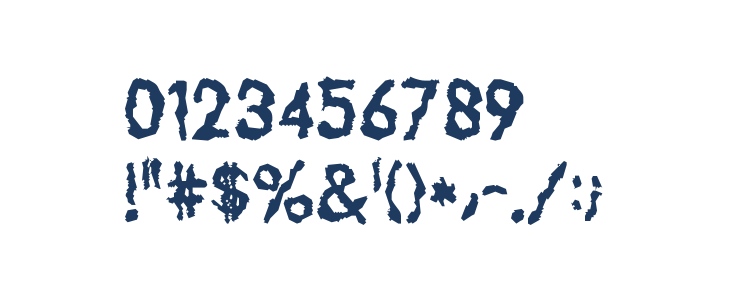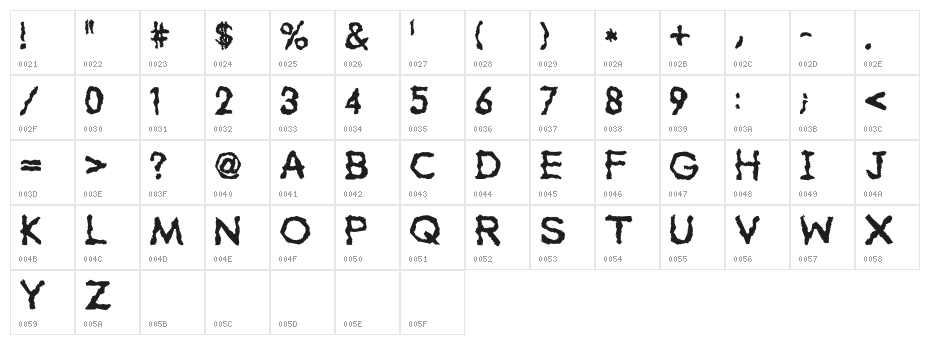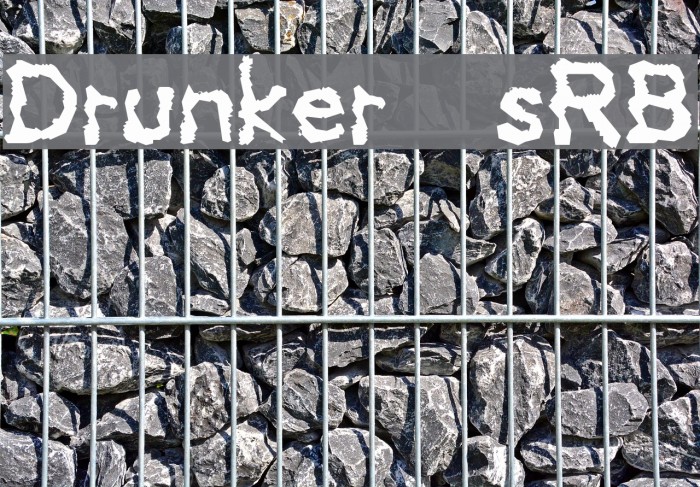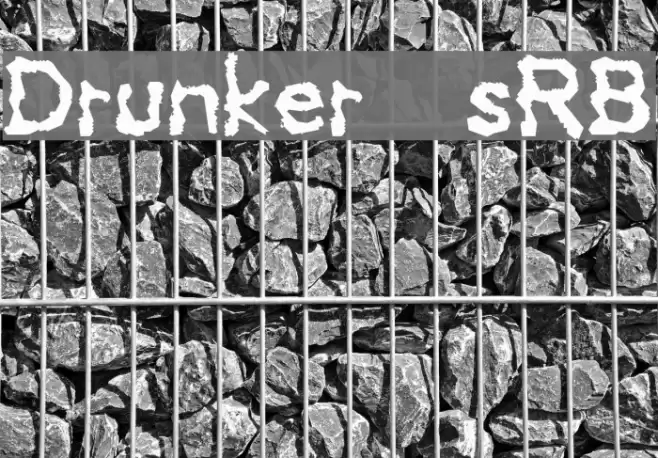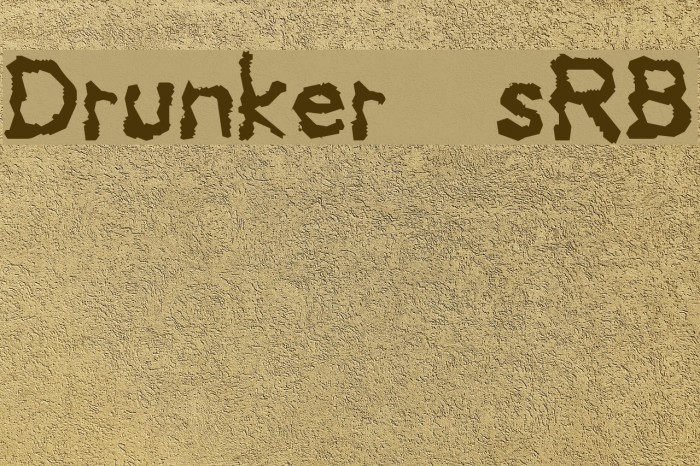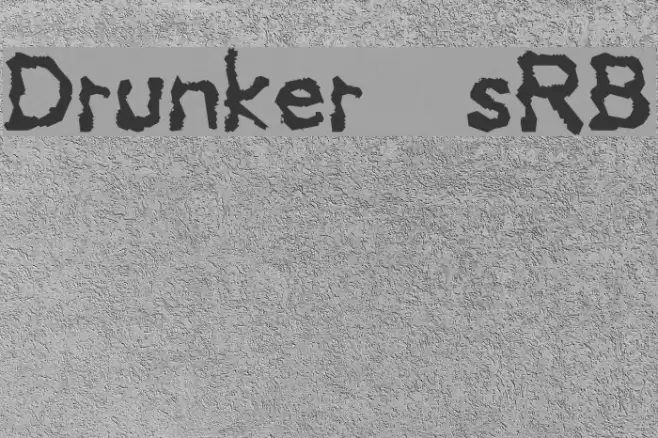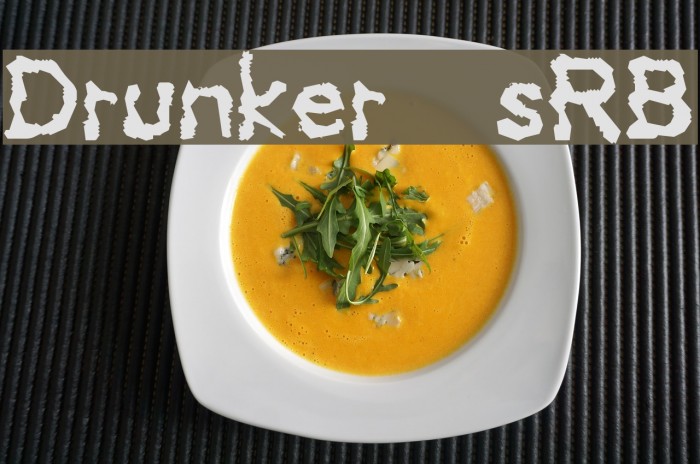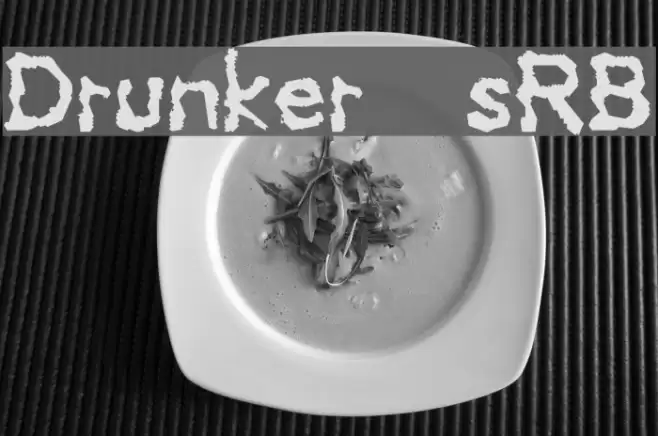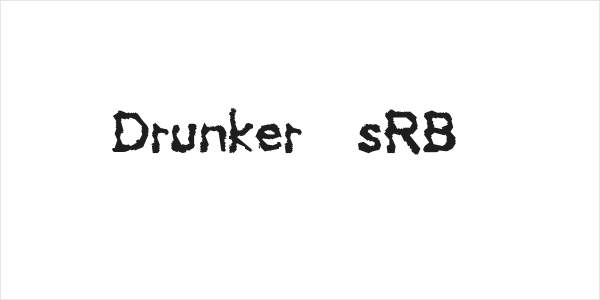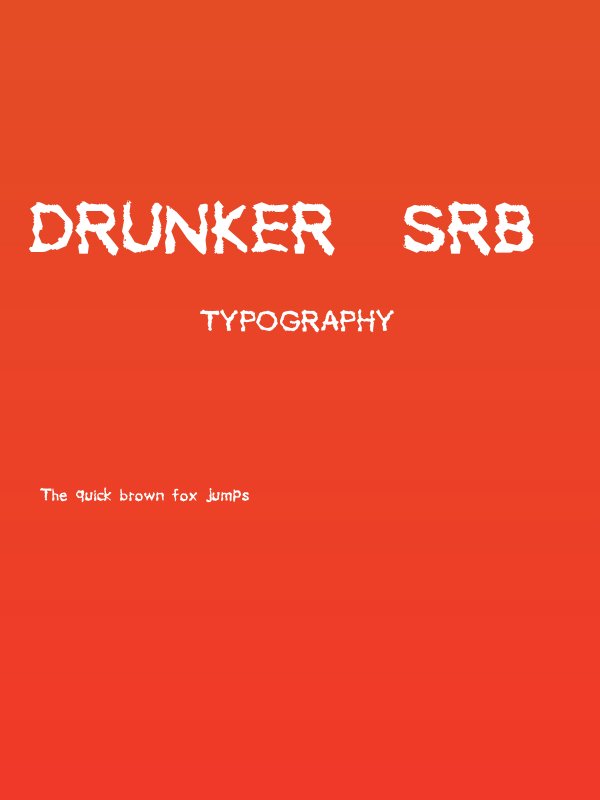
Drunker [sRB] Font
Drunker [sRB] Description
This font features a rugged, distressed appearance with irregular edges and a hand-drawn feel. The characters are bold and uneven, giving them a chaotic yet artistic look. Each letter and number appears to have been crafted with a rough brush or pen, adding to its unique and edgy style. The uppercase and lowercase letters maintain a consistent design, while the numbers and special characters follow the same aesthetic, ensuring a cohesive look across all glyphs. This font is ideal for projects that require a bold statement or an unconventional, artistic touch.
A rugged, distressed font with a hand-drawn, chaotic style from Decorative fonts.
- Proposed Projects: Ideal for album covers, posters, graffiti art, or any project needing an edgy, artistic flair.